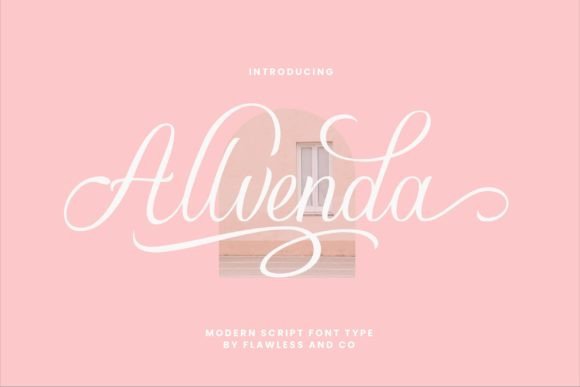
Introducing Alvenda Font: Elevate Your Designs with Elegance
Are you on the hunt for a font that exudes style, sophistication, and a touch of delicacy? Look no further than Alvenda Font. This stunning script font is making waves in the design community, and for good reason. With its clean, thin, and smooth vibe, Alvenda is the perfect addition to any design project that requires a dash of elegance.
What is Alvenda Font?
Alvenda Font is a beautiful script font that boasts a unique blend of style and simplicity. Its delicate strokes and slender lines make it an ideal choice for designers who want to add a touch of sophistication to their work. Whether you’re crafting a logo, creating a social media graphic, or designing a website, Alvenda Font is sure to impress.
Key Features of Alvenda Font
- Clean and Thin Lines: Alvenda Font features clean and thin lines that give it a smooth and elegant appearance.
- Delicate Strokes: The font’s delicate strokes make it perfect for designs that require a touch of sophistication.
- Script Style: Alvenda Font is a script font that adds a touch of elegance and style to any design.
- Versatile: This font is versatile and can be used for a wide range of design projects, from logos and graphics to websites and more.
Why Choose Alvenda Font?
So, why should you choose Alvenda Font for your next design project? For starters, its unique and elegant style sets it apart from other fonts on the market. Additionally, its versatility makes it suitable for a wide range of design applications. Whether you’re a seasoned designer or a crafty DIY enthusiast, Alvenda Font is sure to become a favorite in your font collection.
Alvenda Font is a dream come true for designers and crafters who want to add a touch of elegance to their work. Whether you’re creating:
- Logos and Branding: Use Alvenda Font to create a sophisticated and memorable logo that will leave a lasting impression.
- Social Media Graphics: Add a touch of style to your social media graphics and stand out in a crowded feed.
- Websites and Blogs: Use Alvenda Font to create a beautiful and elegant website or blog that will leave your visitors in awe.
- DIY Projects: Add a touch of elegance to your DIY projects, such as handmade cards, invitations, and more.
Tips for Using Alvenda Font
To get the most out of Alvenda Font, here are a few tips to keep in mind:
- Pair with Bold Fonts: Pair Alvenda Font with bold fonts to create a striking contrast that will make your design pop.
- Use for Headings: Use Alvenda Font for headings and titles to add a touch of elegance and sophistication.
In conclusion, Alvenda Font is a stylish and delicate script font that is sure to elevate your designs to the next level. With its clean, thin, and smooth vibe, it’s the perfect addition to any design project that requires a touch of elegance. Whether you’re a designer, crafter, or DIY enthusiast, Alvenda Font is a must-have in your font collection.